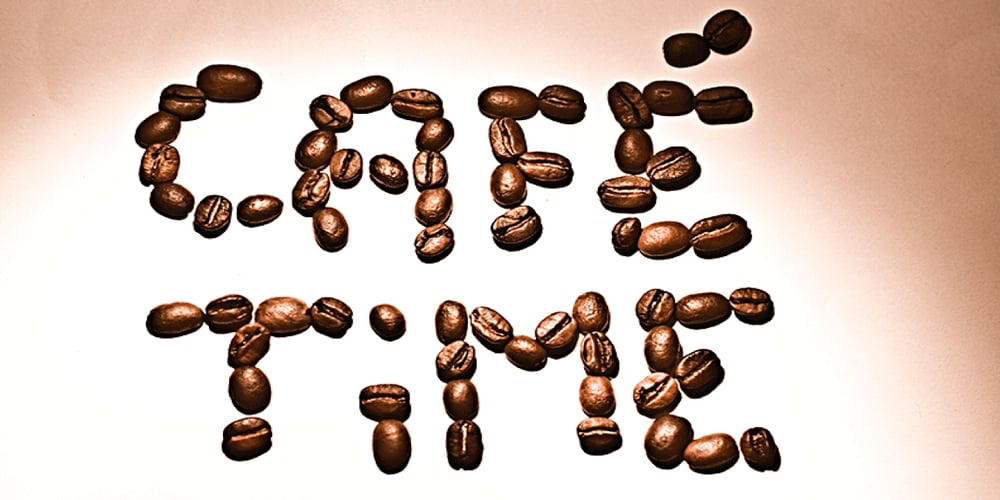
Coffee Beans Time Font Family was designed by Manuel Viergutz and published by TypoGraphicDesign. Coffee Beans Time contains 6 styles and family package options. The typeface Coffee Beans Time is designed from 2018–2022 for the font foundry Typo Graphic Design by Manuel Viergutz and Annelena Grascht as a graphic design and photography project.The display font based on the original coffee beans and create a dingbat pattern.3 font-styles (Dingbats, Mix, Coffee Ground) with 304 glyphs (Adobe Latin 2) incl. decorative extras like icons, arrows, dingbats, emojis, symbols, geometric shapes (type the word #LOVE for ♥︎ or #SMILE for ☺ as OpenType-Feature dlig) and stylistic alternates (2 stylistic sets).For use in logos, magazines, posters, advertisement plus as webfont for decorative headlines. The font works best for display size.Have fun with this font & use the DEMO-FONT (with reduced glyph-set) FOR FREE! ■ Font Name: Coffee Beans Time■ Font Styles: 3 (Dingbats, Mix, Ground) + DEMO (with reduced glyph-set)■ Font Category: Display for headline size■ Glyph Set: 304 glyphs (Adobe Latin 2) incl. extras like icons (decorative extras like arrows, dingbats, emojis, symbols)■ 93 languages: Afrikaans Albanian Asu Basque Bemba Bena Breton Catalan Chiga Cornish Danish Dutch English Estonian Faroese Filipino Finnish French Friulian Galician German Gusii Indonesian Irish Italian Kabuverdianu Kalenjin Kinyarwanda Luo Luxembourgish Luyia Machame Makhuwa-Meetto Makonde Malagasy Manx Morisyen North Ndebele Norwegian Bokmål Norwegian Nynorsk Nyankole Oromo Portuguese Quechua Romansh Rombo Rundi Rwa Samburu Sango Sangu Scottish Gaelic Sena Shambala Shona Soga Somali Spanish Swahili Swedish Swiss German Taita Teso Uzbek (Latin) Volapük Vunjo Welsh Western Frisian Zulu■ Design Date: 2018–2022■ Type Designer: Manuel Viergutz und Annelena Grascht